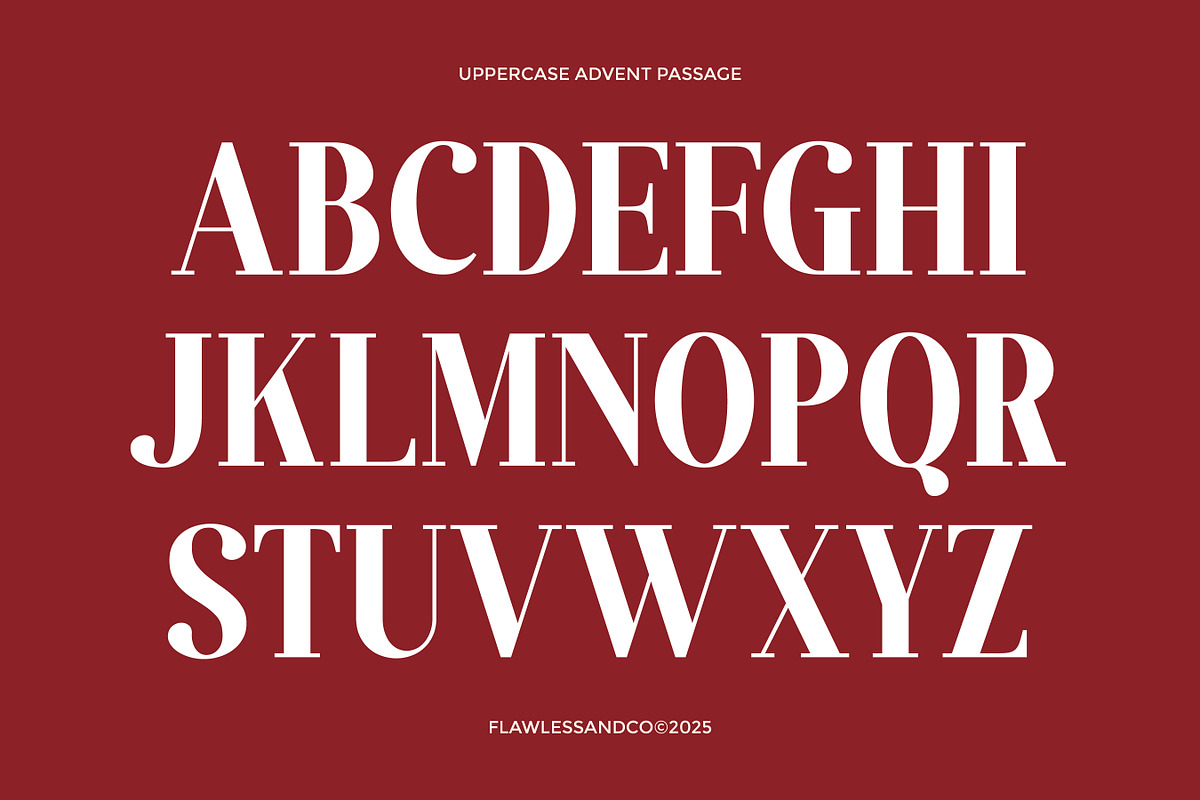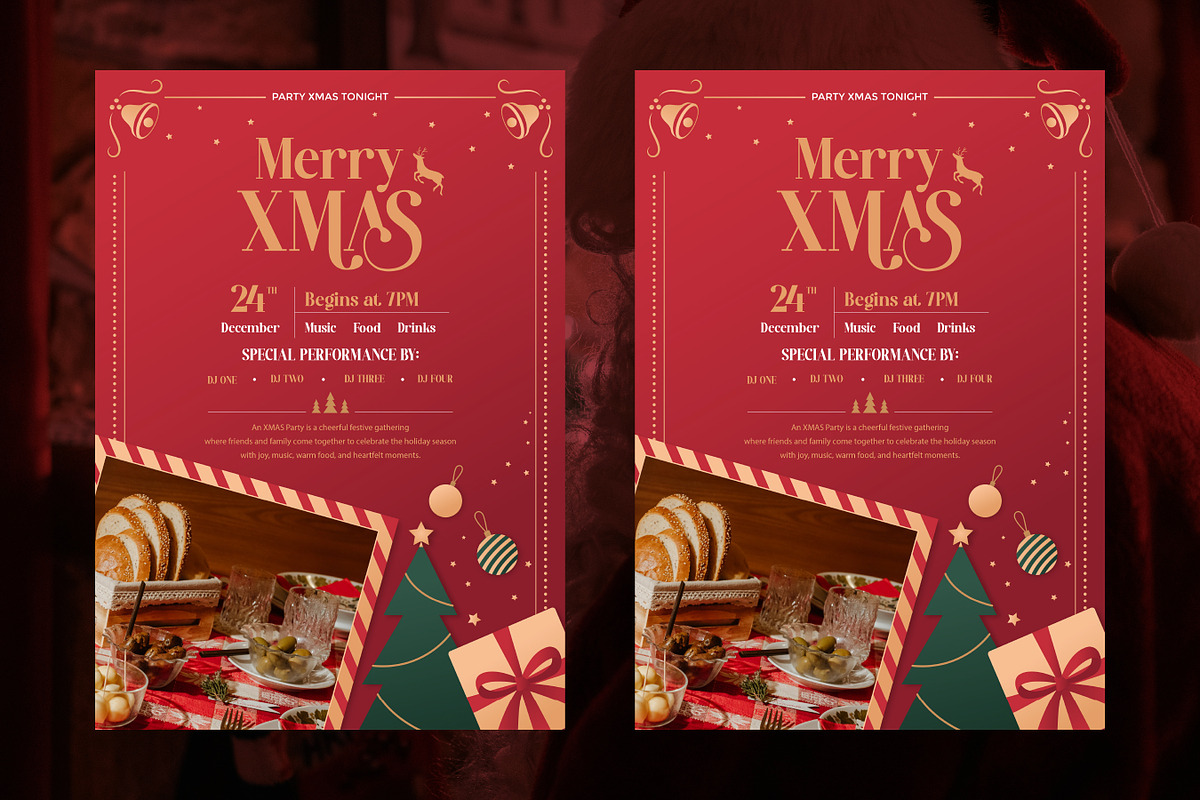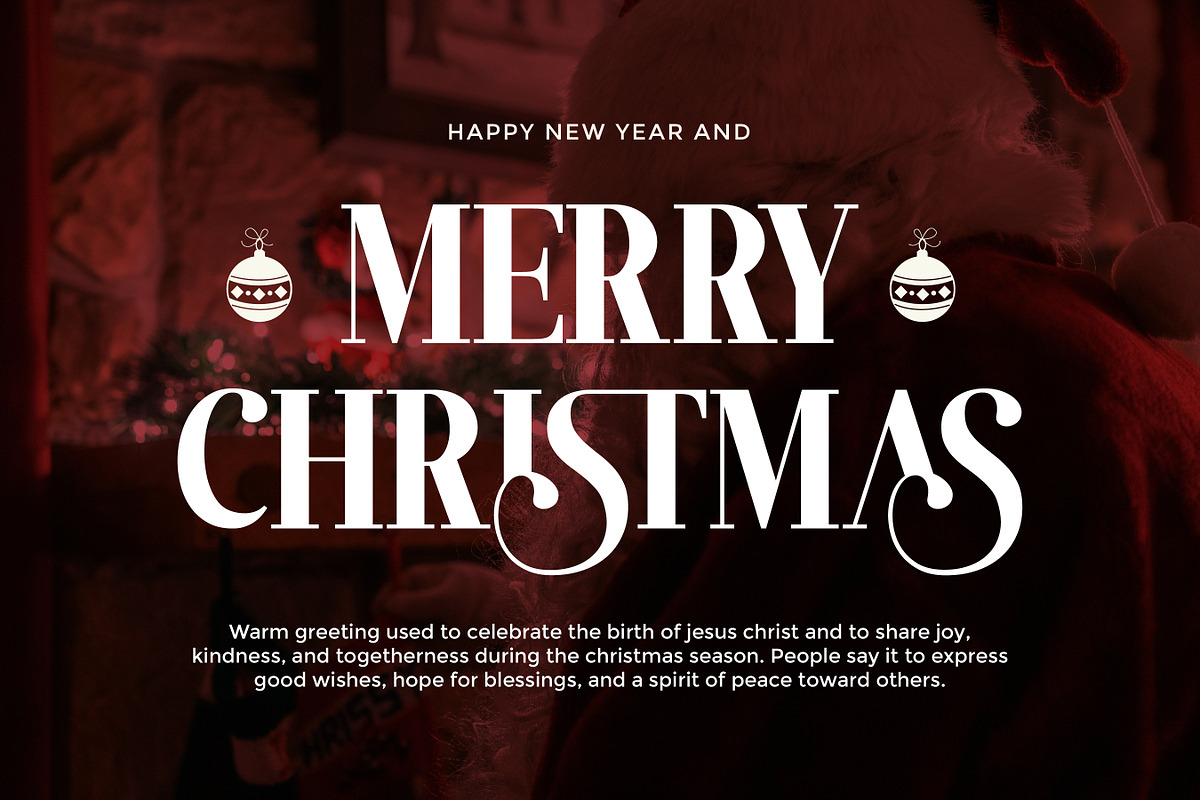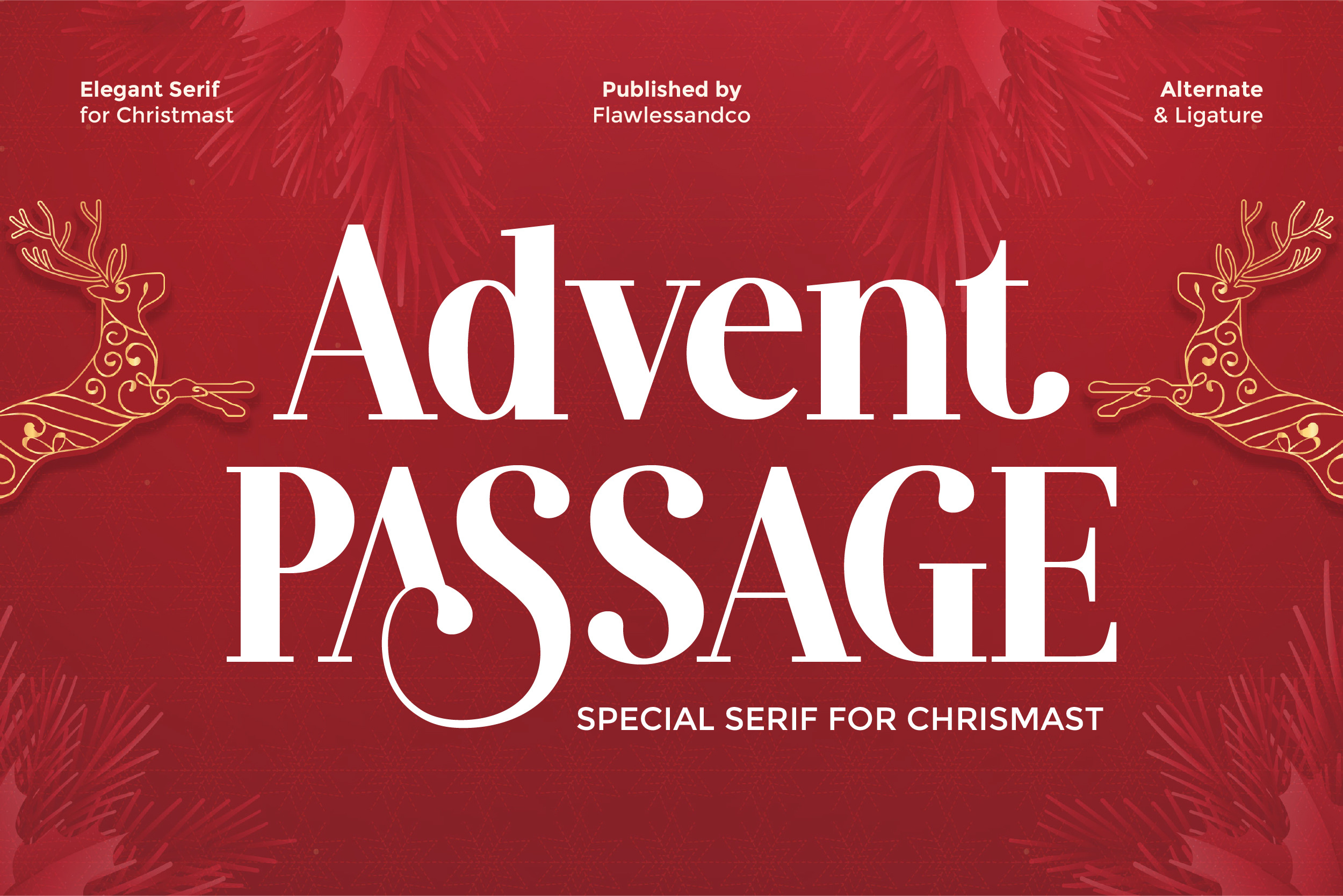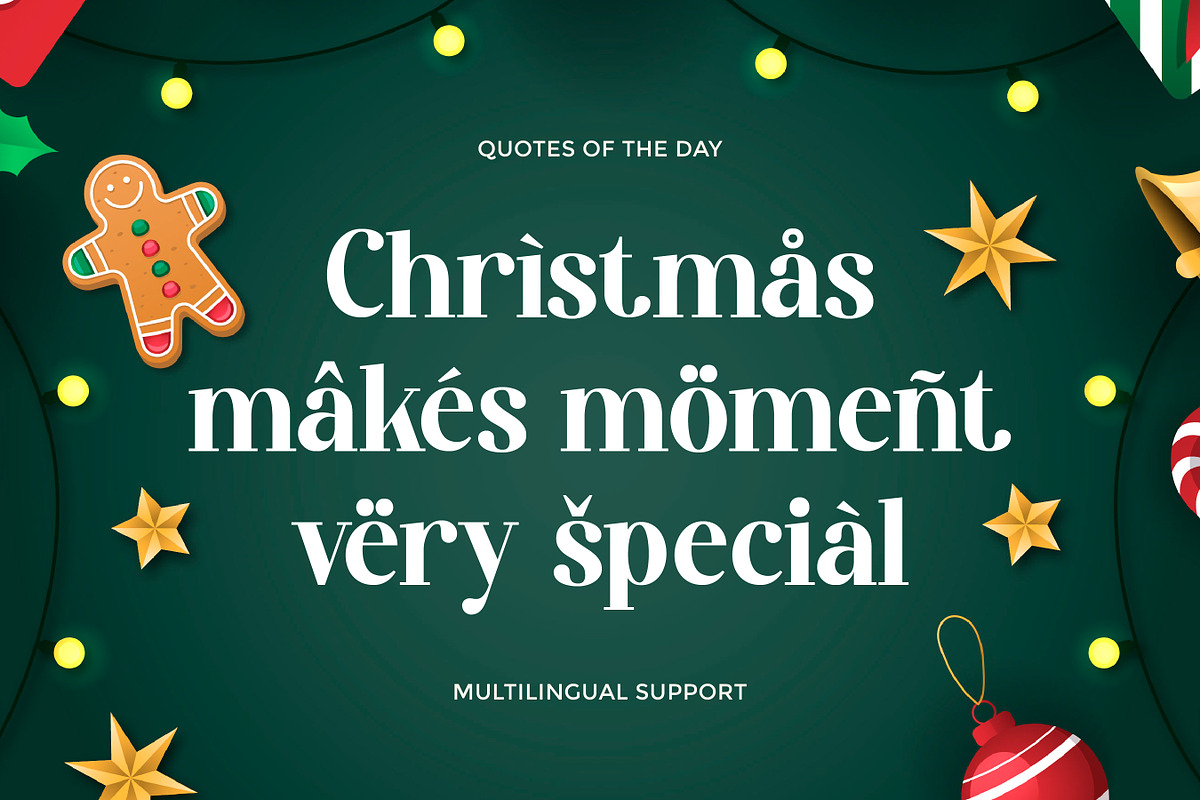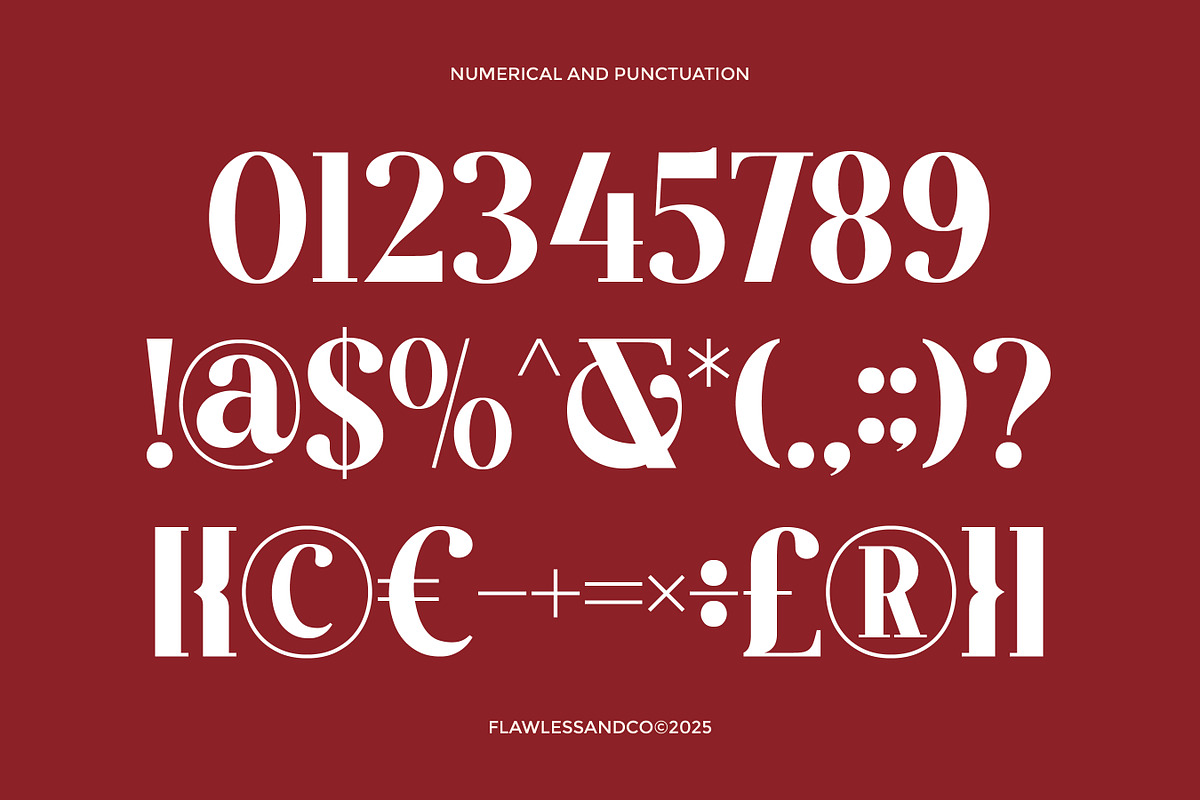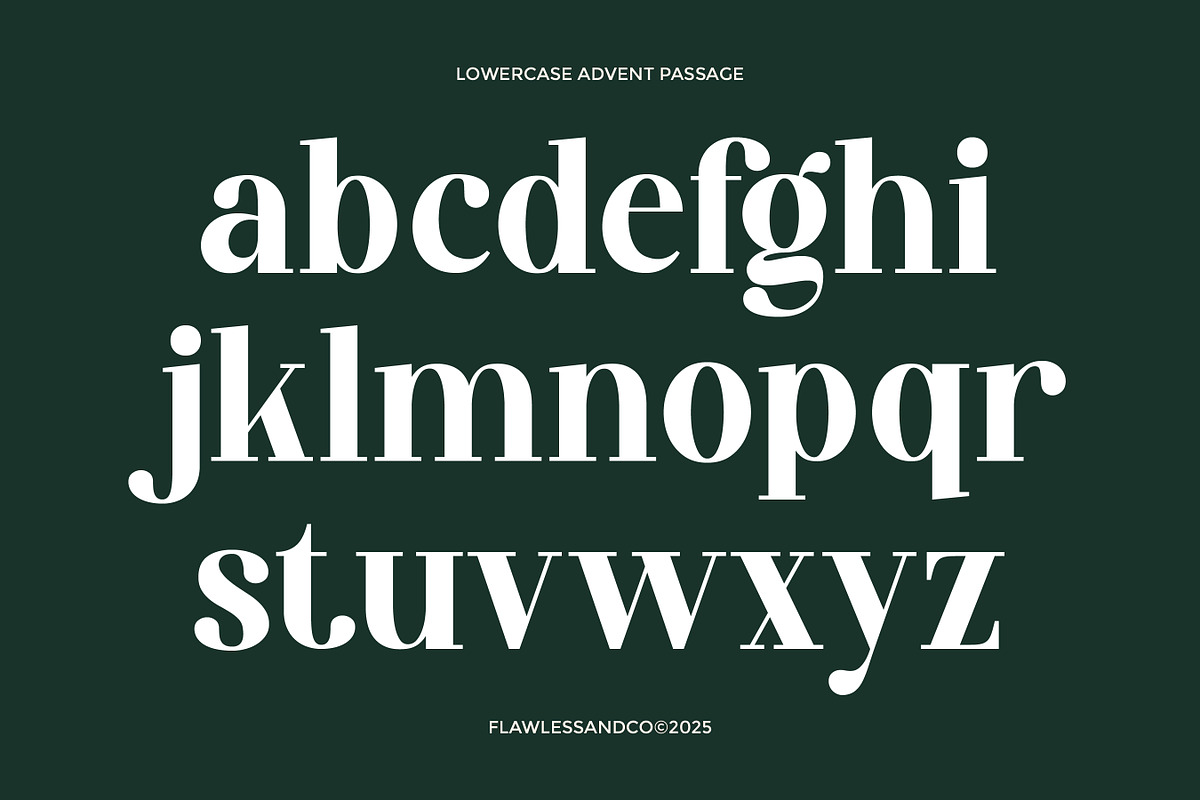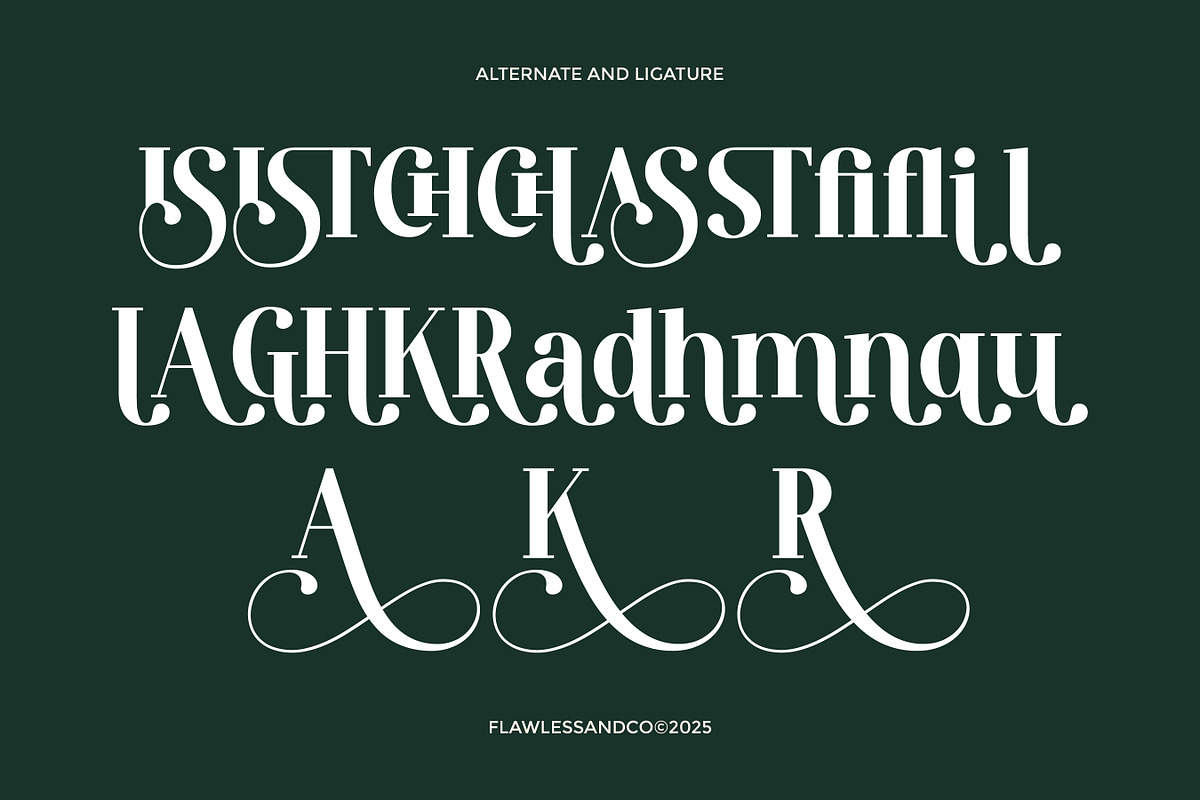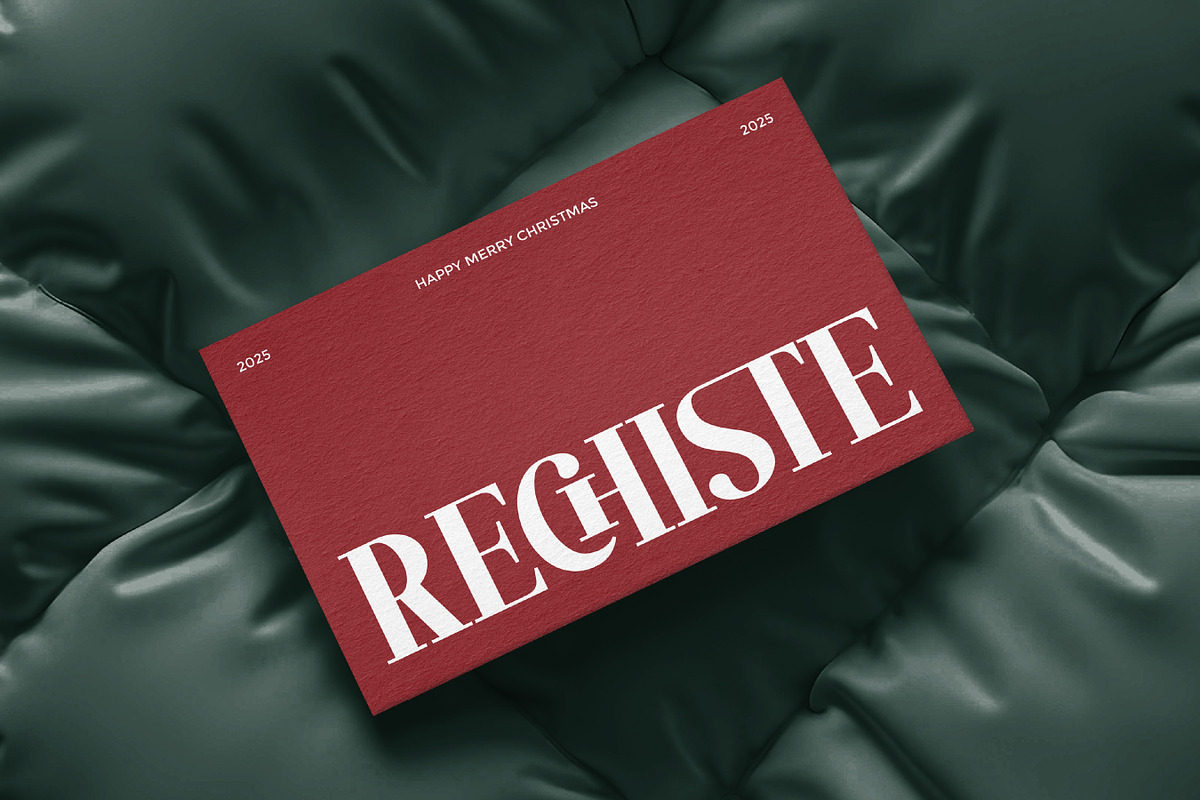
Advent Passage - Elegant Serif Font
Advent Passage is an elegant serif font designed to bring a refined, timeless, and festive feel to your designs. With its graceful letterforms, classic proportions, and stylish details, this font is perfect for creating a luxurious and warm atmosphere—especially for holiday and seasonal projects.
Who Should Use Advent Passage?
Advent Passage is ideal for designers, brand creators, and creatives who want to deliver an elegant and sophisticated impression. It works beautifully for projects that require a classic, premium, and festive touch, making it especially suitable for Christmas-themed and formal designs.
A Must-Have Font for Brand and Logo Creators and Designers
This font is a valuable addition for branding and logo designers who want to create memorable identities with a timeless serif style. Advent Passage helps elevate visual branding with elegance, clarity, and a professional look
Why Choose Advent Passage for Brand and Logo Projects?
Advent Passage combines classic serif beauty with modern elegance, allowing your brand and logo designs to stand out with a refined character. Its balanced shapes, alternates, and ligatures provide flexibility and a polished finish for high-quality visual results.
Suitable for:
- Branding and logo design
- Christmas and holiday-themed projects
- Luxury and premium brand identities
- Editorial design and magazine headlines
- Invitations and greeting cards
- Packaging and product labels
- Posters and promotional materials
- Elegant social media graphics